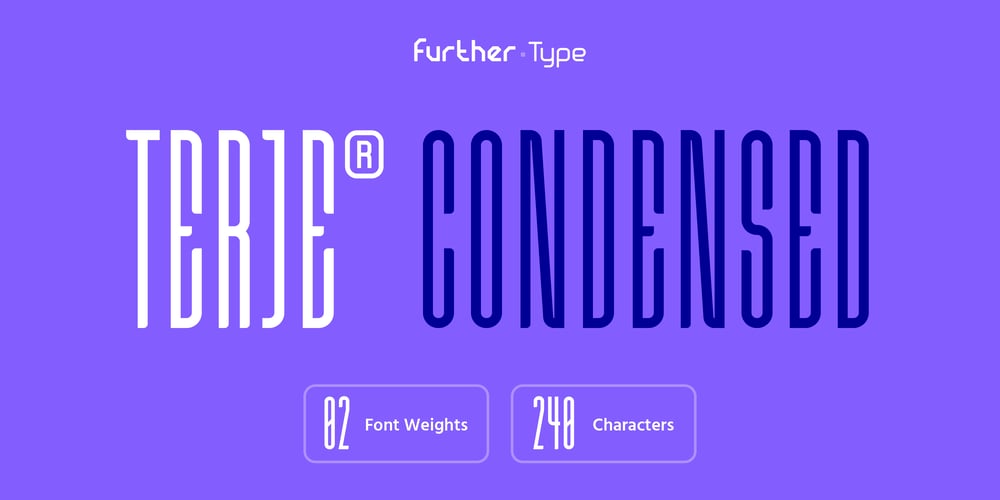
Terje Font Family was designed by Thomas Weaver and published by Further Type. Terje contains 2 styles and family package options. When you’ve got something big to say, but space is tight, the only way is up! Terje, an ultra condensed display font by Further Type, is here to help you create eye-catching, playful headlines, and logotypes that stand head and shoulders above the rest.